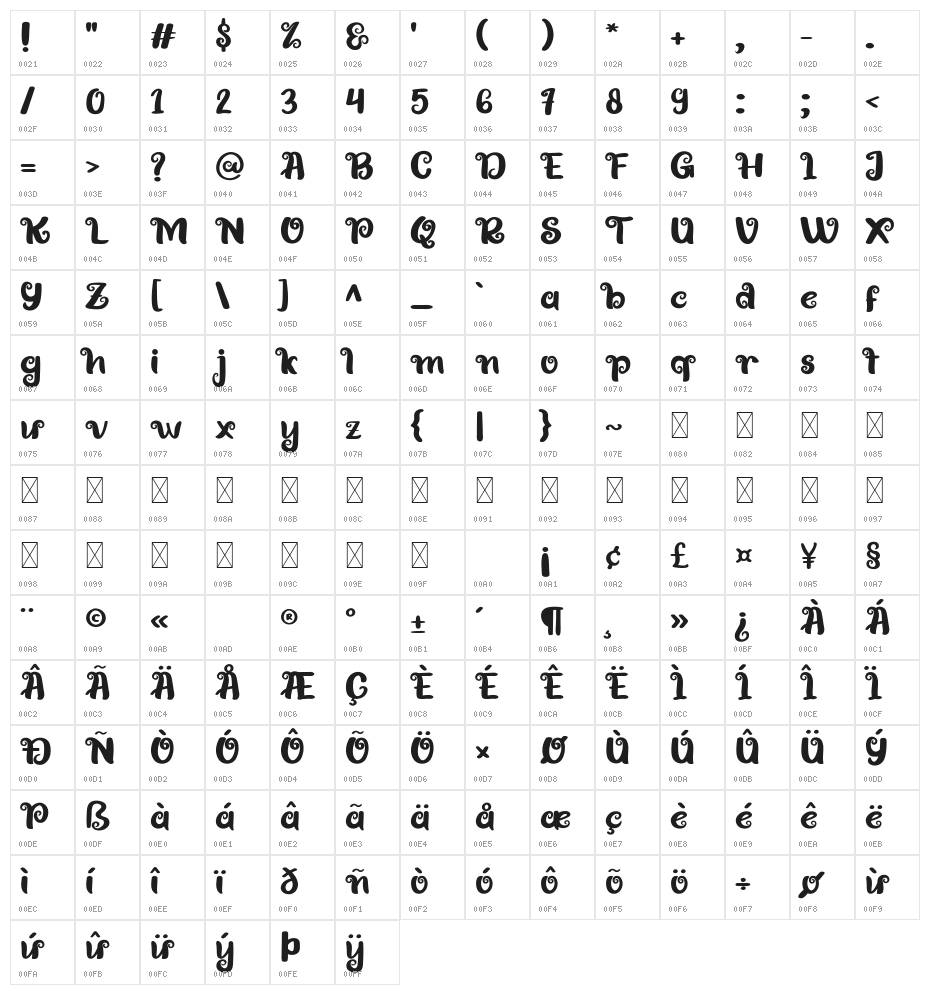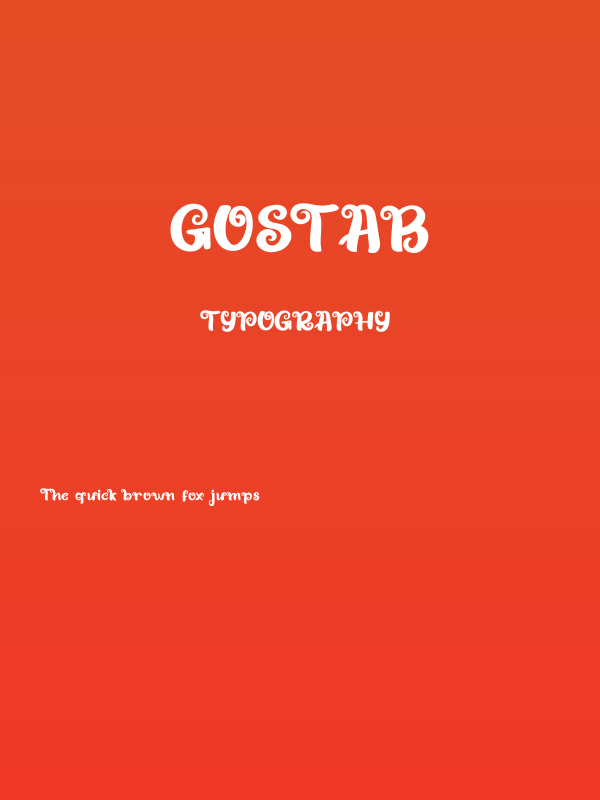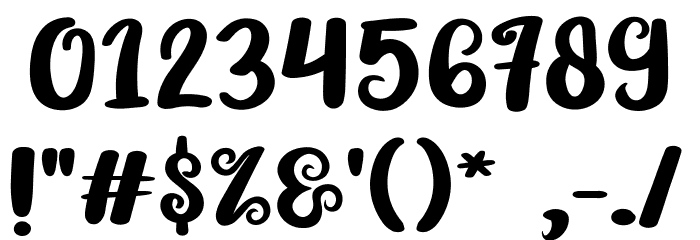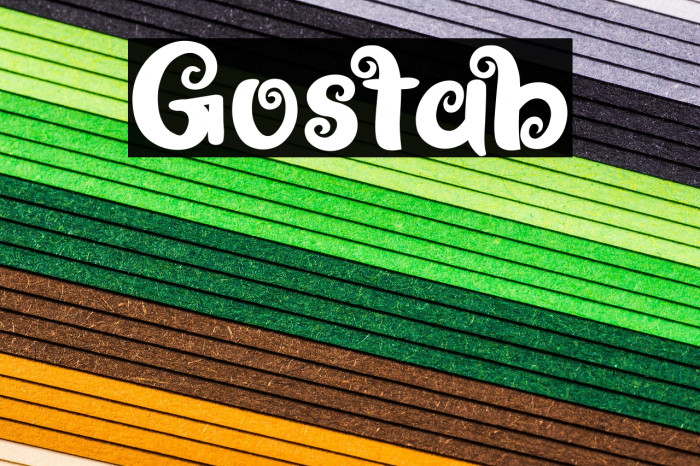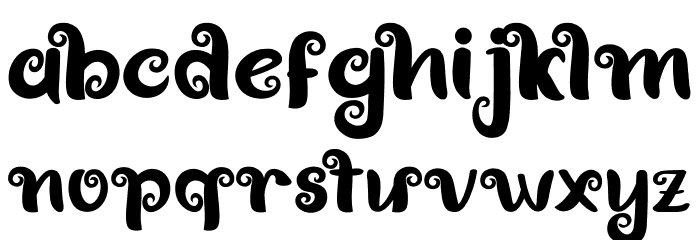
Gostab Font
Gostab Description
This font features a playful and whimsical design, characterized by its bold and rounded letterforms. Each character is adorned with unique curls and swirls, adding a sense of fun and creativity. The uppercase letters maintain a consistent height, while the lowercase letters exhibit a charming variation in size and shape. Numbers and special characters are crafted with the same attention to detail, ensuring a cohesive look throughout. The overall appearance is both eye-catching and approachable, making it suitable for projects that require a touch of personality and flair.